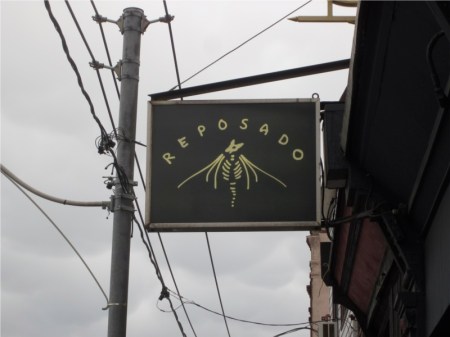
Reposado
This sign has a slightly macabre edge, but it also doesn’t take itself too seriously. I like the way the name and the graphic are composed of the same casual strokes.
It hangs above a tequila bar on Ossington, and that skeletal bat must leave many wondering. As it turns out, there’s a connection: the long-nosed bat is responsible for pollinating agaves, whose juices are the source of tequila.
Reposado means “rested”, referring to the amount of time tequila is aged in oak casks. This bat looks like it’s resting for good—and at the same time it’s airborne, inviting us in.